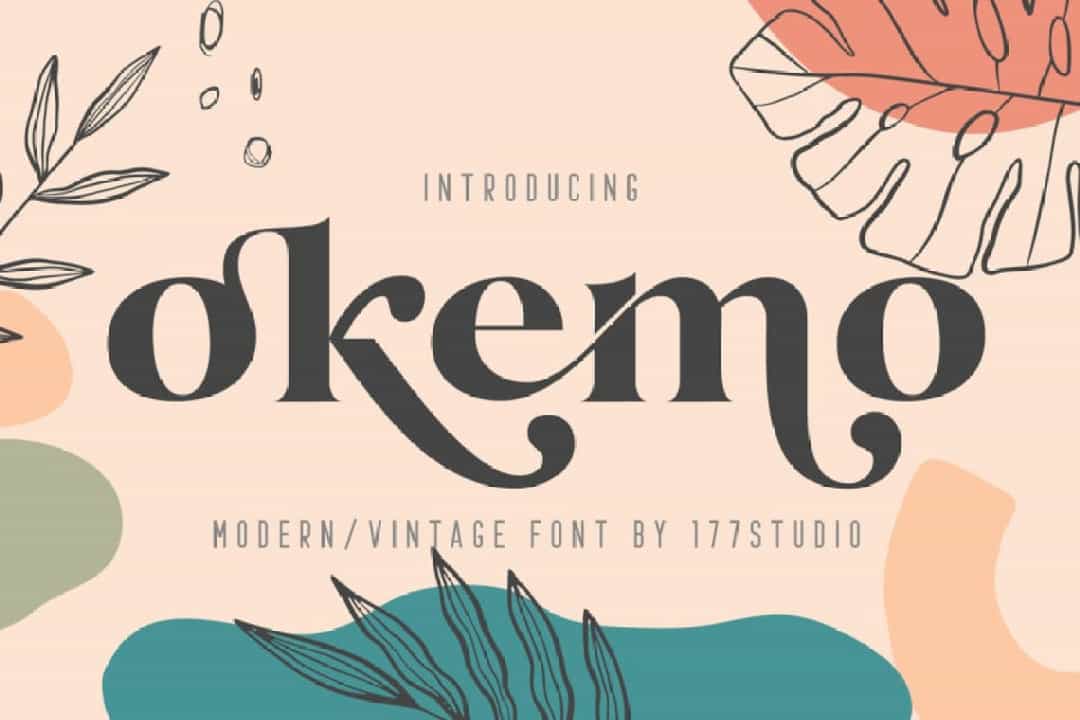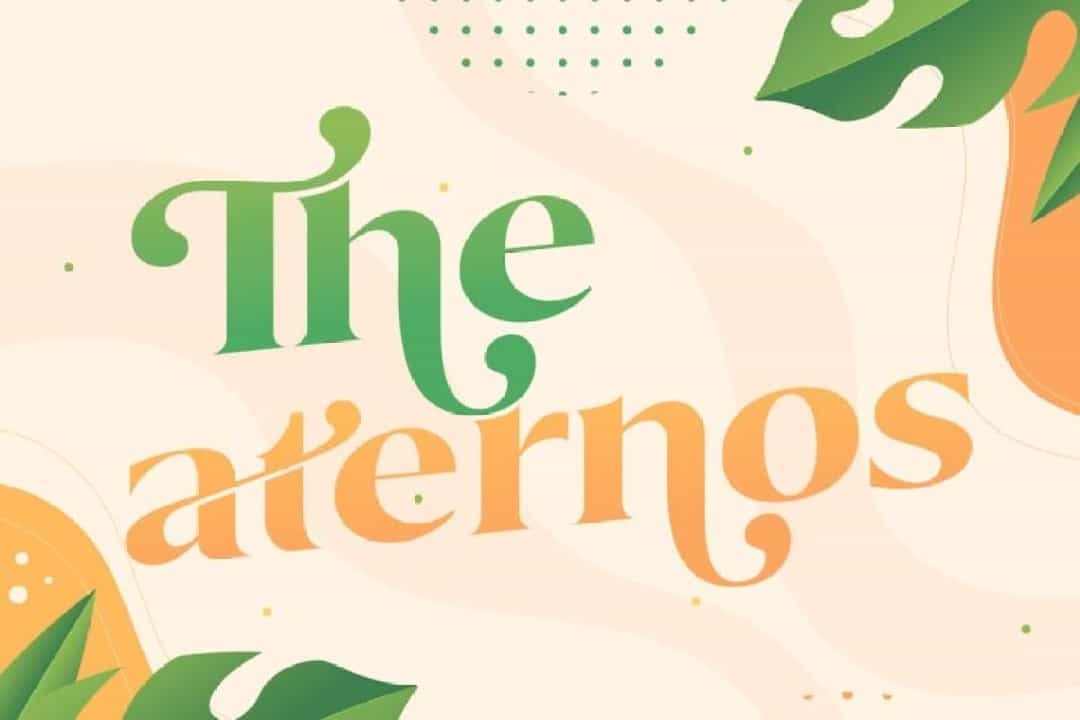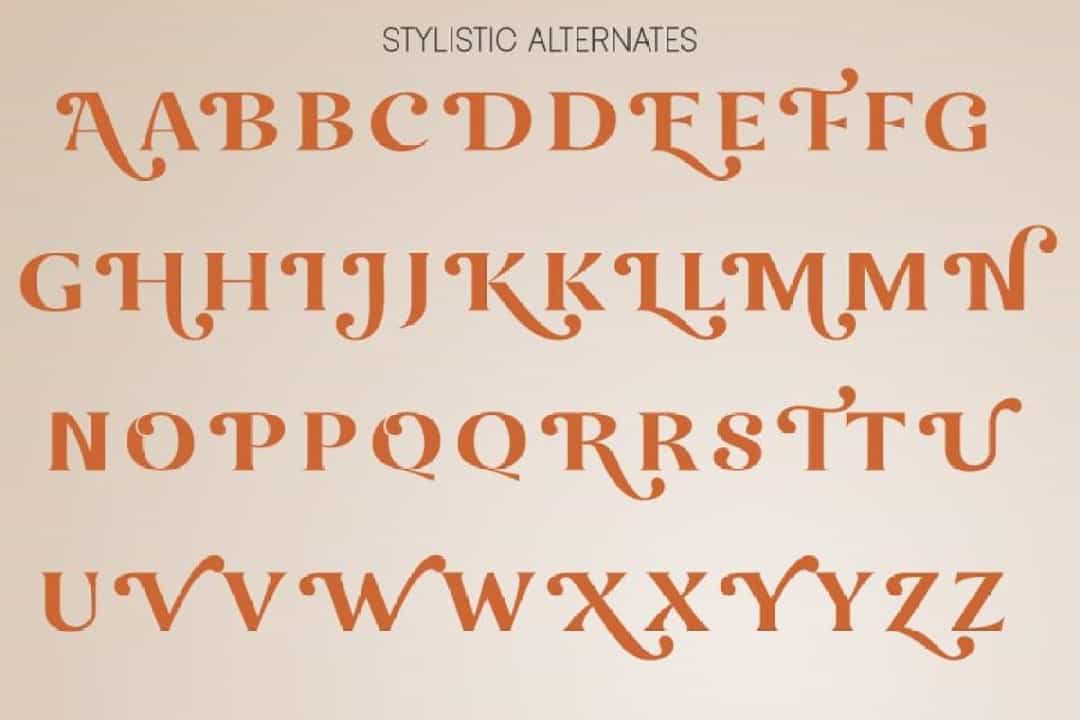
Okemoi is a retro font that has fine and thick lines, thus creating a new age vintage serif font! Okemo Font has a special character and a lower case letter for each letter while it also has some special ending letters and even more special Ligatures for texts.